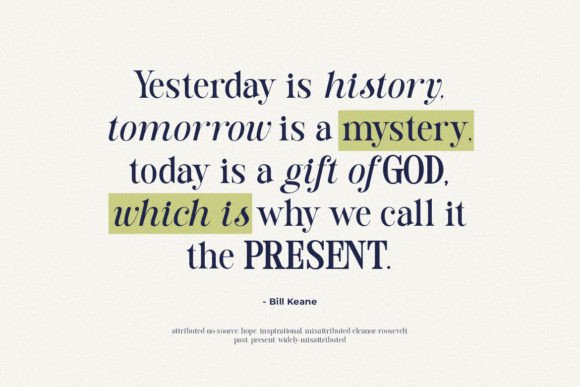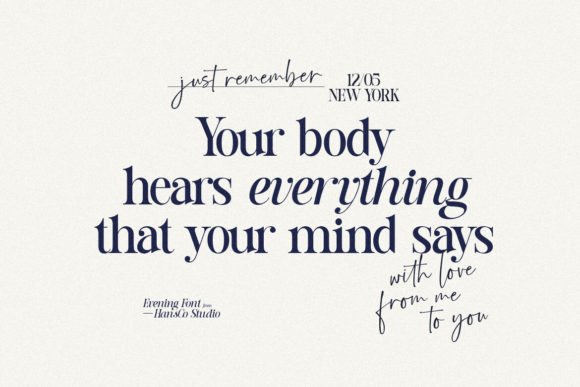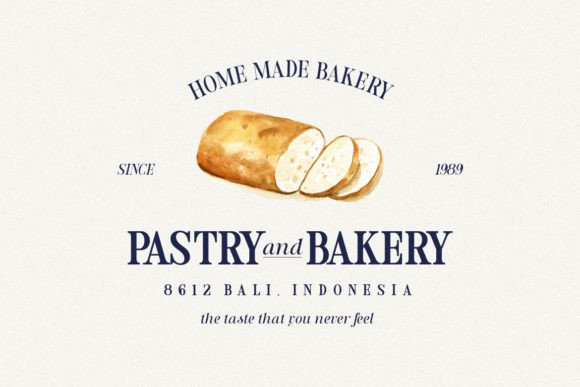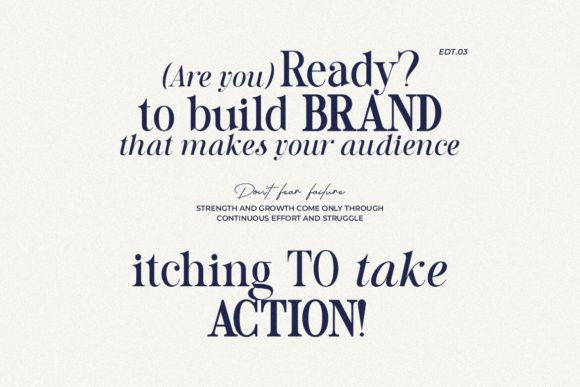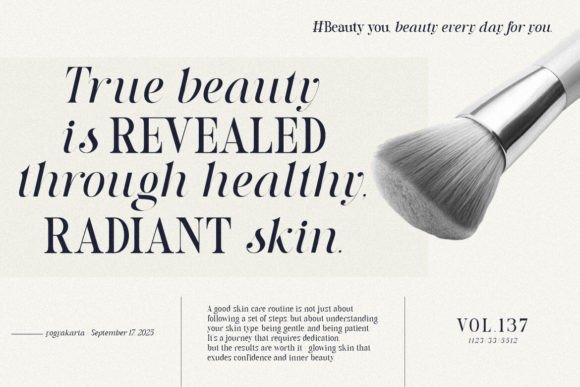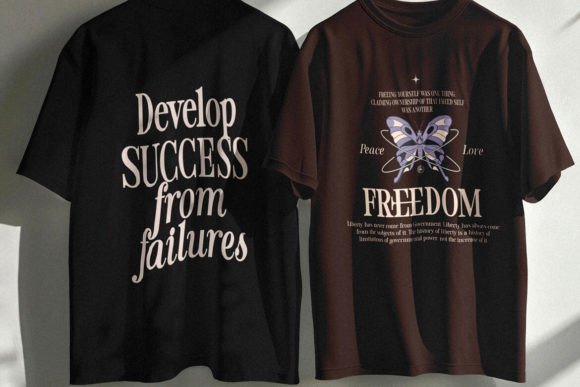
Introducing Evening: The Ultimate Serif Font for Timeless Elegance
In the world of typography, a well-crafted font can elevate your design project from ordinary to extraordinary. We’re excited to introduce Evening, our latest serif font that seamlessly blends classic charm with contemporary style. With its six distinct styles, Evening offers a versatile solution for designers and crafters looking to add a touch of sophistication to their work.
The Evening Font: A Masterful Blend of Classic and Modern
Evening is a beautifully crafted serif font that exudes elegance and refinement. Its classic design elements are expertly combined with modern flair, making it an ideal choice for a wide range of projects. From editorial layouts to brand identities and websites, Evening’s timeless beauty and fresh feel make it the perfect addition to your typographic arsenal.
Explore the Range: 6 Styles to Suit Your Needs
What sets Evening apart is its comprehensive range of six styles, carefully designed to provide flexibility and creative freedom. The font family includes:
- Light: Ideal for subtle, elegant designs where a soft touch is desired.
- Regular: The core style that balances readability and style, perfect for body text and general use.
- Bold: For those moments when you need to make a statement, the bold style adds a striking presence to your design.
- Italic versions of each style: Adding a dynamic flair to your text, the italic styles are perfect for emphasizing certain parts of your content or creating a sense of movement.
- Sophisticated Editorial Layouts: Use Evening to bring a sense of luxury and refinement to your magazines, newspapers, and digital publications.
- Striking Brand Identity: Create a memorable brand image with Evening’s distinctive serif style, perfect for logos, packaging, and marketing materials.
- Eye-Catching Websites: Elevate your web design with Evening’s elegant typography, ensuring a professional and inviting online presence.
- Unique Blend of Style and Readability: Evening strikes the perfect balance between aesthetic appeal and legibility, making it ideal for both print and digital media.
- Cross-Platform Compatibility: Designed with modern use cases in mind, Evening performs beautifully across various platforms and devices.
- Time-Saving: With its comprehensive range of styles, you can achieve a cohesive look across your project without the need for extensive font pairing.
This extensive range allows you to experiment with different tones and moods within your projects, ensuring that your design always feels cohesive and on-brand.
Crafting Timeless Designs with Evening
Evening’s versatility makes it suitable for a multitude of applications. Here are a few ideas to get you started:
Why Choose Evening?
There are countless reasons why Evening should be your go-to serif font for your next project:
Evening is more than just a serif font – it’s a design companion that brings timeless elegance and versatility to your projects. With its blend of classic charm and modern style, along with its comprehensive range of six styles, Evening is poised to become your new favorite font. Explore the possibilities with Evening today and discover how it can transform your designs.